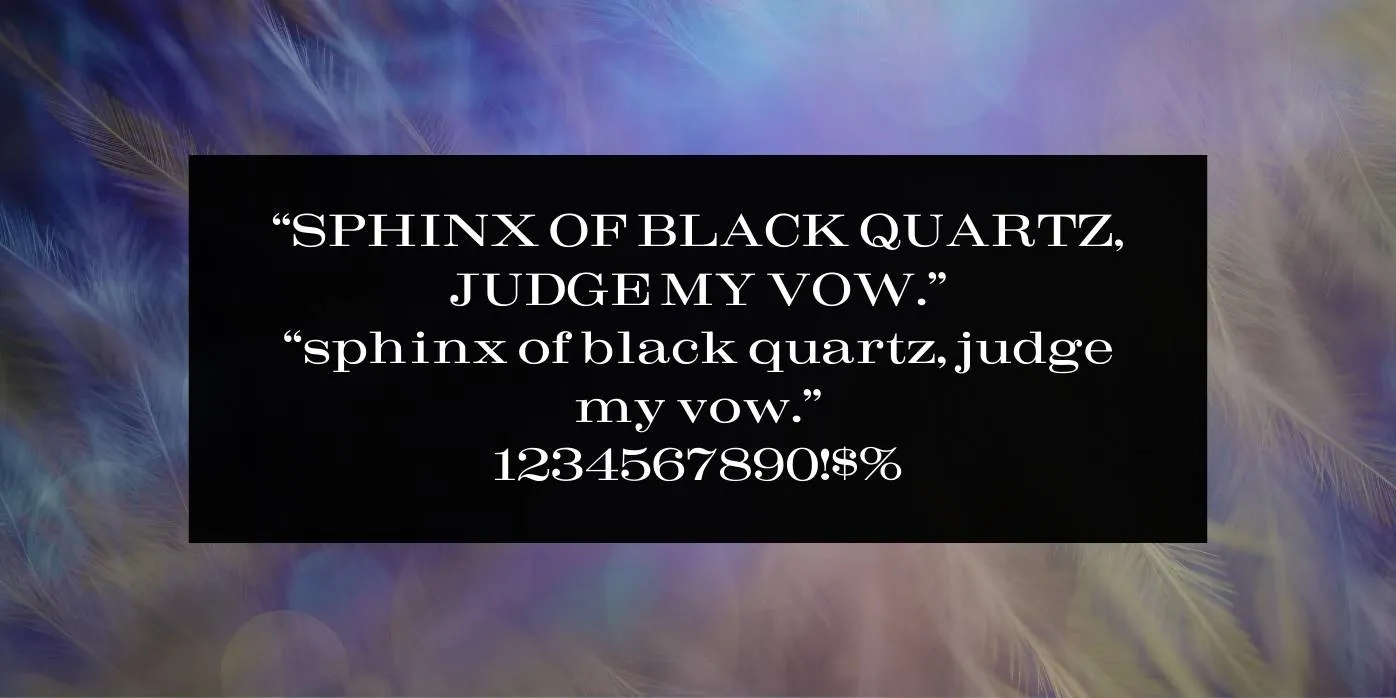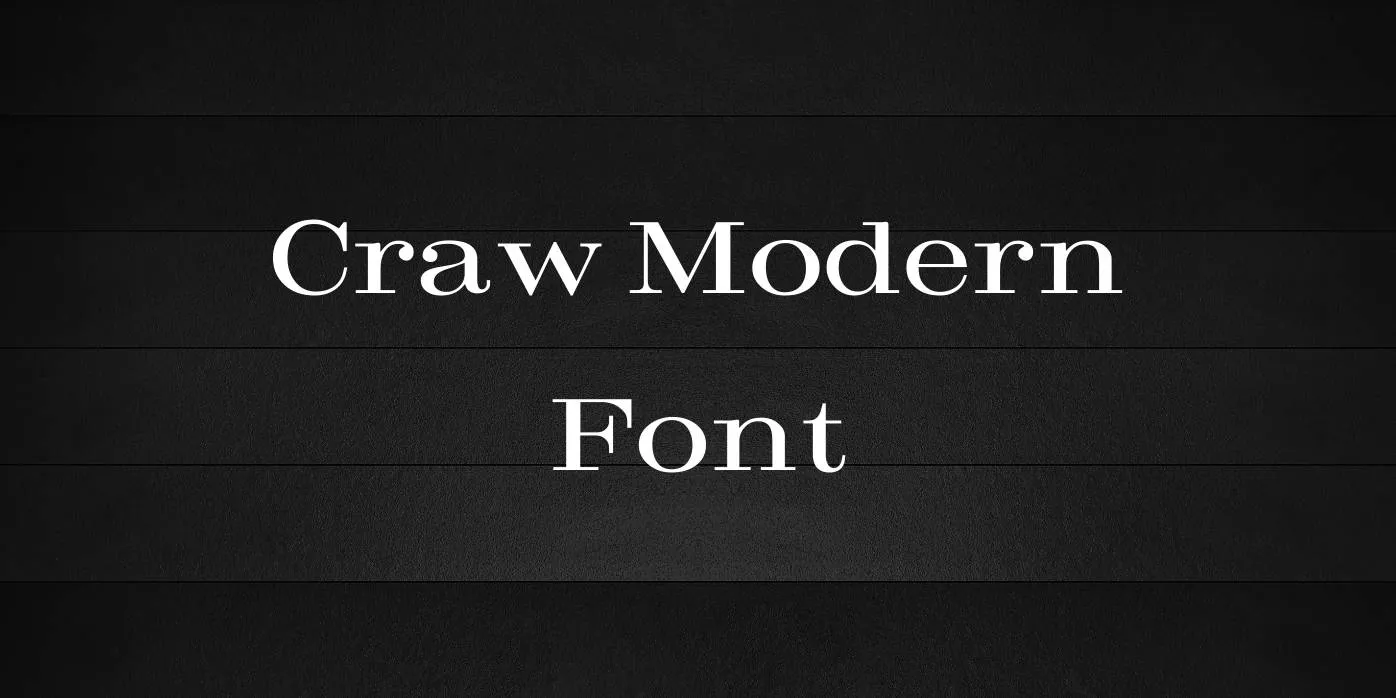
Craw Modern Font
Craw Modern Font is a stylish and versatile serif font that can be used for a variety of purposes. This font style has many unique features and functions. The font has a unique look that makes it stand out from other fonts. The Font was created by designer Rene Bieder in 2006.
The font is named after the city of Craw, France. The font is available in two styles: Regular and Bold. For making something really cool, please try the averta font for your valuable design project. The Font is a versatile font that can be used for a variety of purposes.
It is perfect for banners, posters, and other flyers. The font has a unique look that makes it stand out from other fonts. The Font is a perfect choice for any creative project.